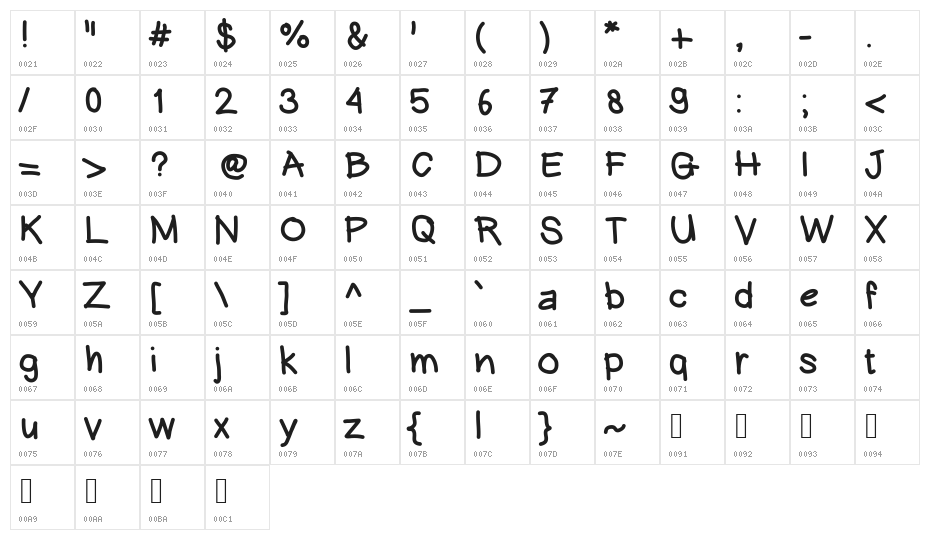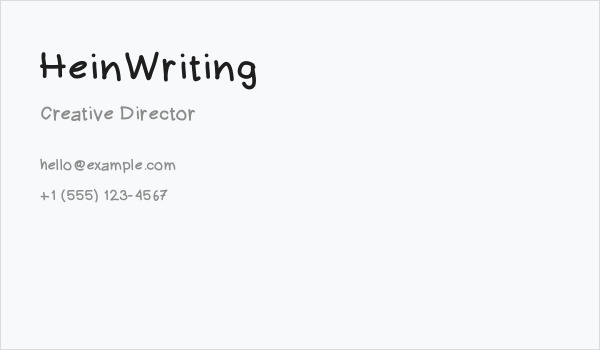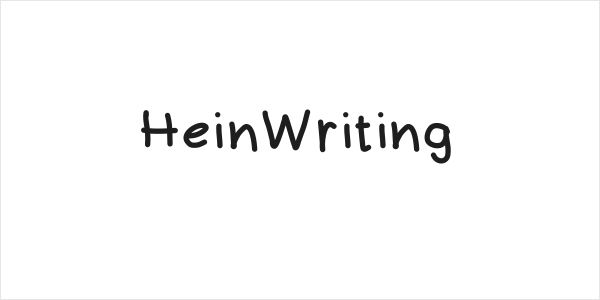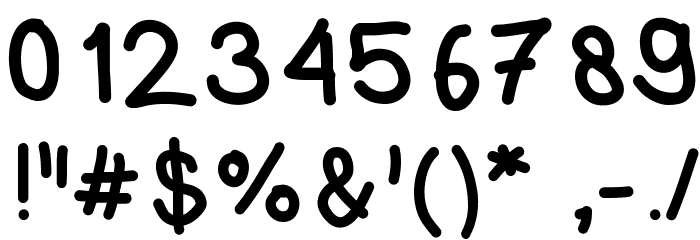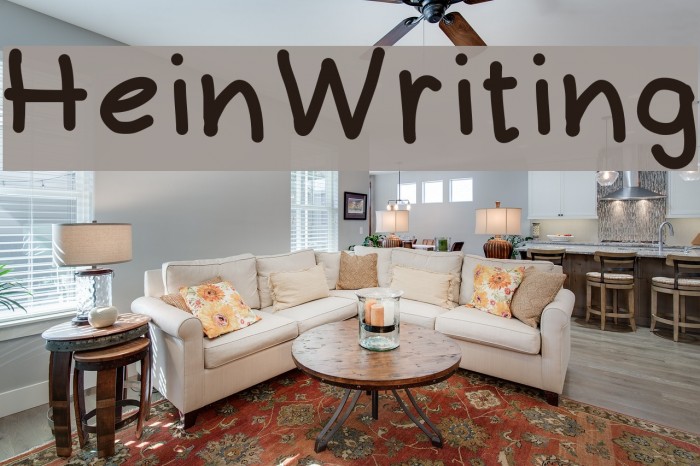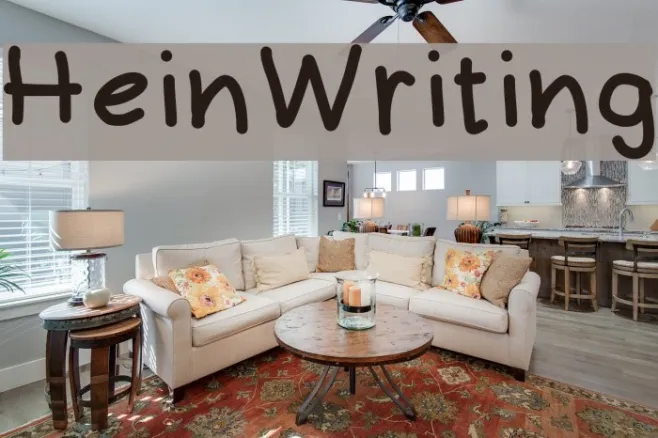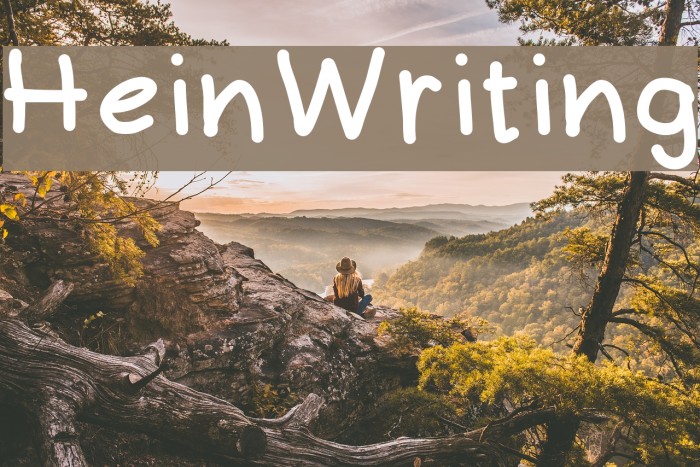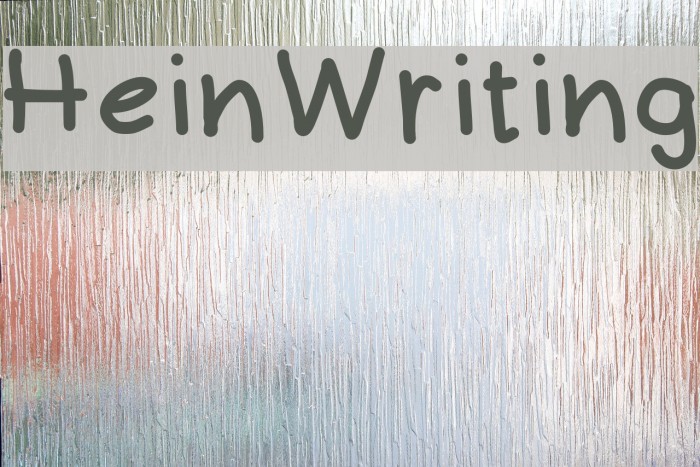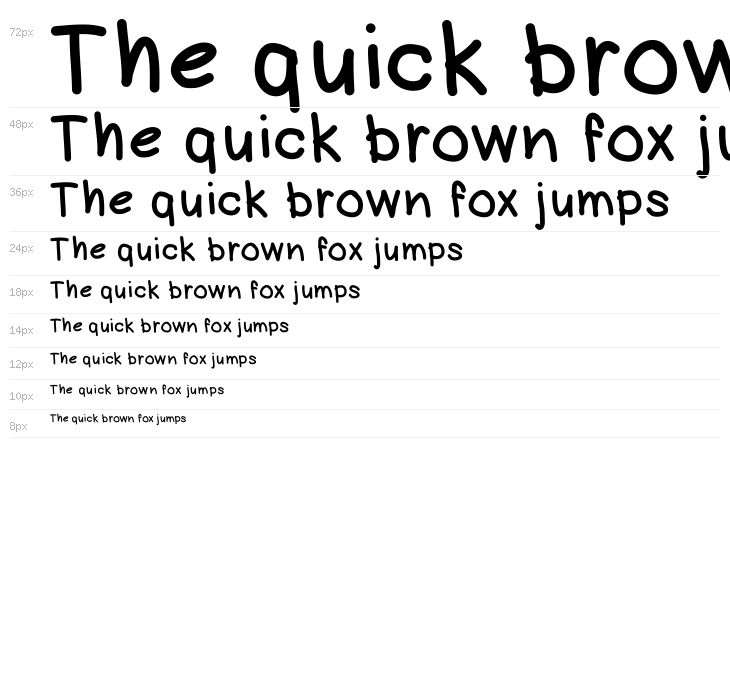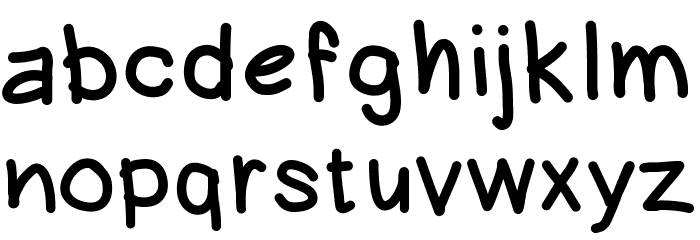
HeinWriting Font
HeinWriting Description
This playful and informal font features a handwritten style with a casual and friendly appearance. The characters are slightly irregular, giving it a personal touch that mimics natural handwriting. The strokes are rounded and smooth, contributing to its approachable and relaxed vibe. The font maintains a consistent weight throughout, with medium contrast between thick and thin strokes. It is well-suited for projects that require a human touch, such as personal invitations, greeting cards, or children's book covers. The spacing between characters is normal, ensuring readability while preserving its informal charm.
| Overall Style | Casual |
| Use Case | Logos, Headlines, Informal Text |
| Proposed Projects | Ideal for personal invitations, greeting cards, children's book covers, and informal branding. |